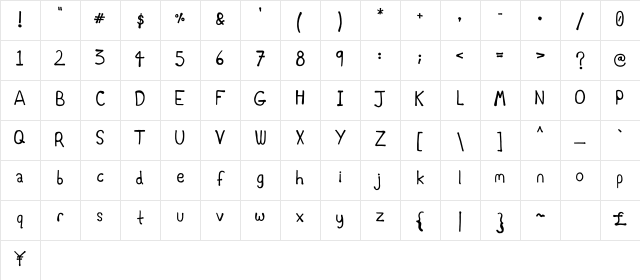
Complete Danhand Regular glyph index. Displaying only characters natively supported by Danhand Regular font.
Danhand flows with the natural rhythm of handwritten lettering, making it ideal for designs that call for warmth and personal expression.
Font Pairing: Combine Danhand with a simple geometric sans for maximum contrast - the tension between flowing curves and clean structure is a classic typographic pairing.
Pro Tip: Use Danhand for short runs of text - names, titles, or taglines. Extended body copy in script faces tires the eye quickly.